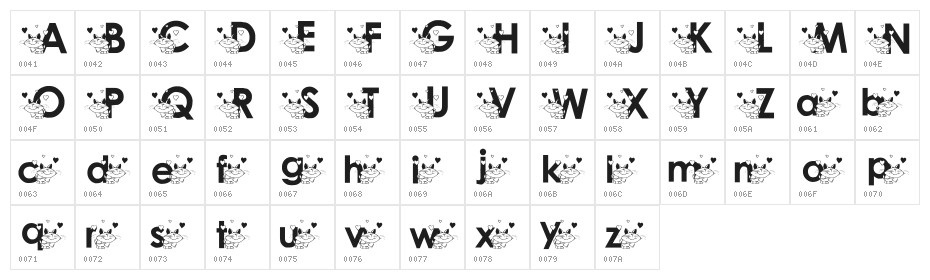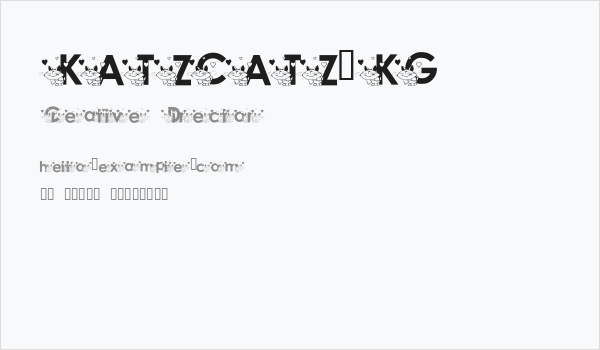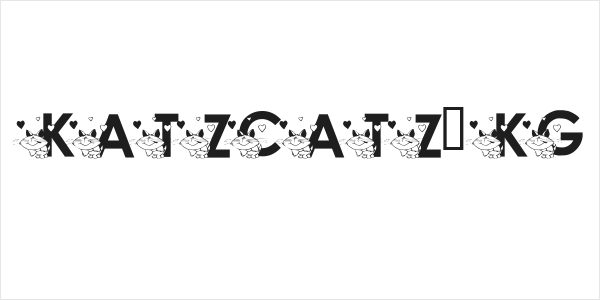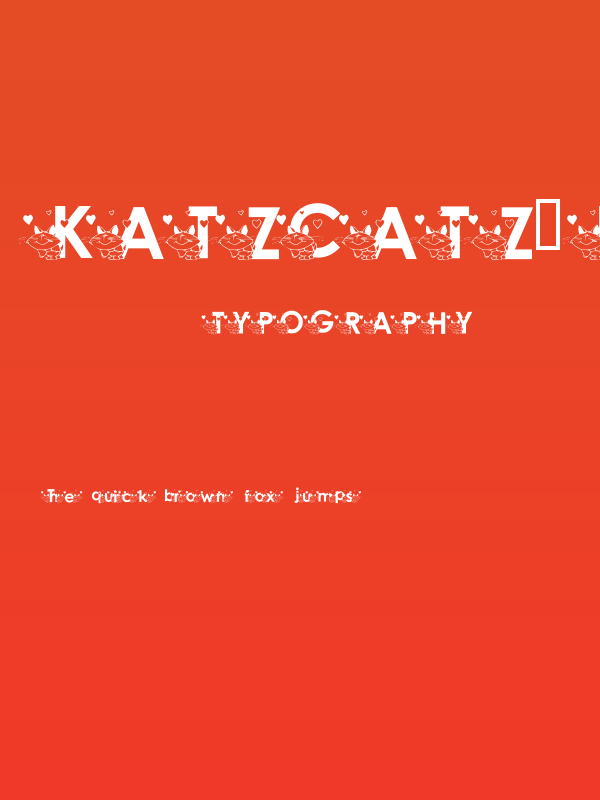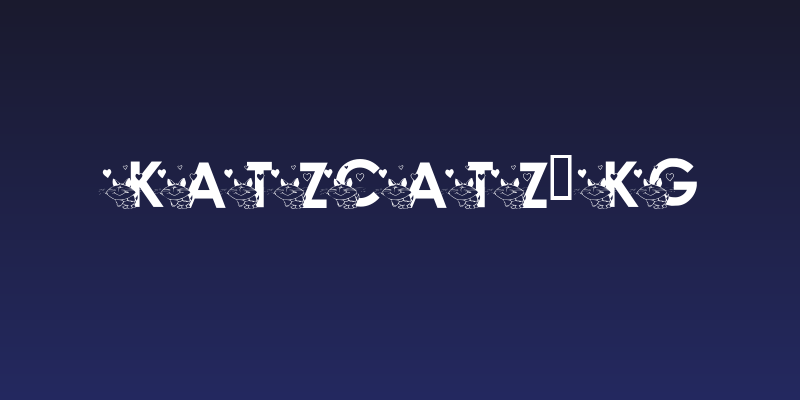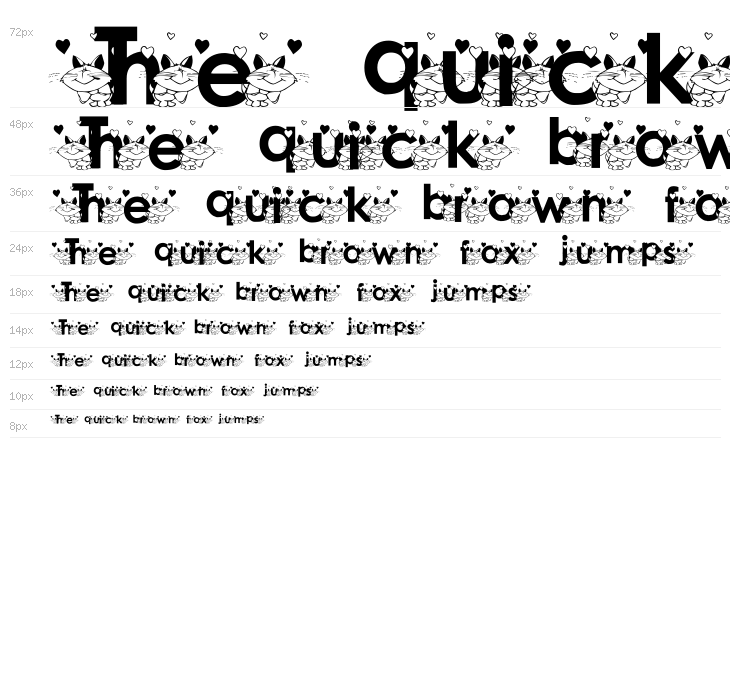
KATZCATZ_KG Font
KATZCATZ_KG Description
This playful and decorative font features bold, uppercase and lowercase letters adorned with whimsical cat illustrations. Each character is integrated with charming cat motifs, adding a unique and fun element to the text. The font is characterized by its bold weight and normal width, making it stand out while maintaining readability. The spacing between characters is normal, ensuring clarity despite the decorative elements. The overall style is modern and playful, perfect for projects that require a touch of creativity and humor.
| Overall Style | Playful, Modern, Decorative |
| Use Case | Headlines, Logos, Creative Projects |
| Proposed Projects | Ideal for children's books, playful branding, pet-related products, or any project seeking a whimsical and fun aesthetic. |